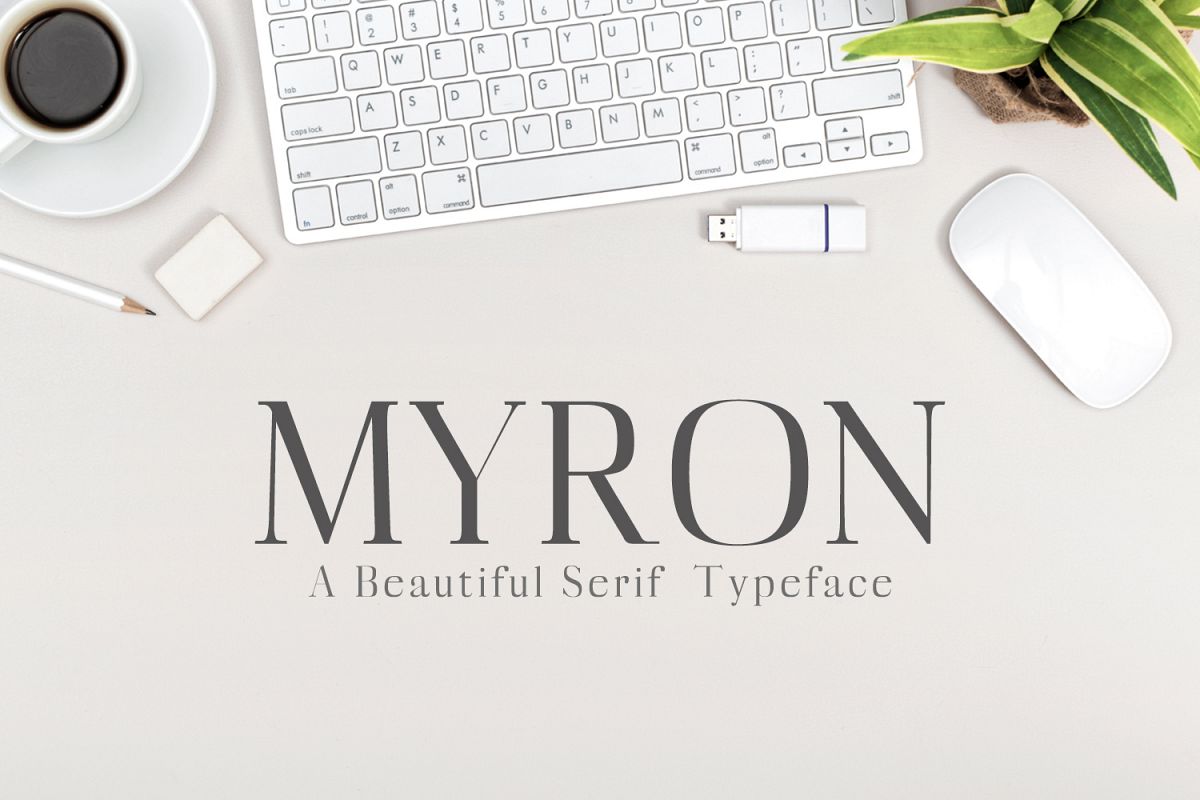
Myron Serif Typeface
Myron Serif Typeface is a beautiful set of display fonts. Myron family contains 6 weights, from Light to Bold. Myron is Perfect for headlines, posters, branding, packaging, presentations, short texts.
Serif Typeface
Regular, Light, Thin, Medium, Regular, Bold
Myron Font Features:
Uppercase Multilingual Letters
Lowercase Multilingual Letters
Numbers & Punctuation
Alternative